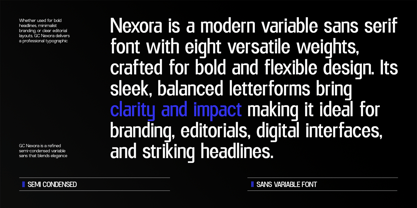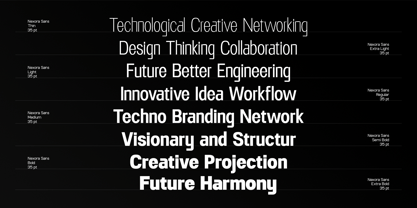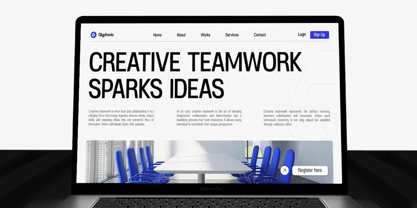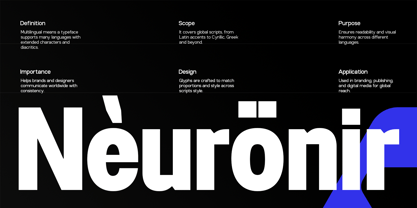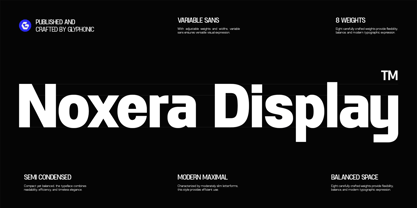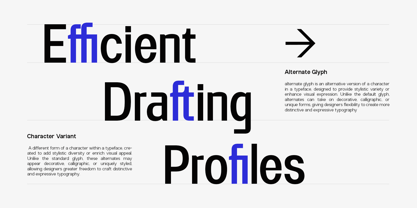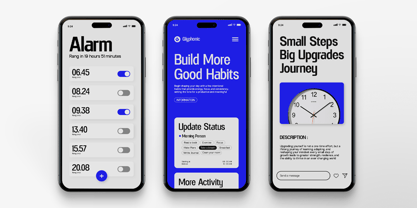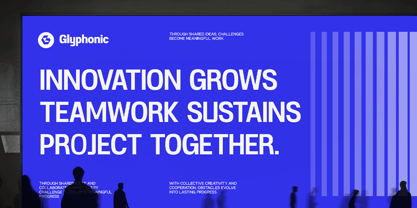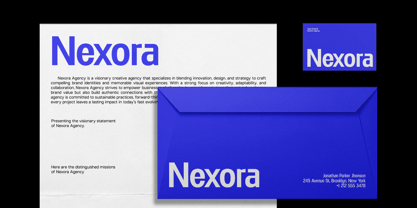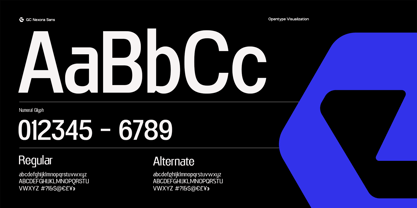
GC Noxera Display
by Onyx Studio
The GC Noxera Display Font Family was designed by Muhammad Hafiizh Solana and published by Onyx Studio. GC Noxera Display contains 8 styles and family package options. More about this family
GC Noxera Display – Modern Variable Sans is a contemporary sans-serif typeface designed for precision, versatility, and bold visual impact. With variable weights and widths, it offers complete flexibility across digital and print platforms—perfect for brands, headlines, interfaces, and editorial designs that demand clarity and modern sophistication. Its semi-condensed form balances efficiency with strong readability, while the geometric construction adds a clean and confident tone. Crafted for designers who value both adaptability and character, GC Noxera Display brings a sense of power, control, and forward-thinking style to every layout. Features: Uppercase & Lowercase Numbers & Punctuation Variable & Static Versions Semi-Condensed Structure Multilingual Support (170+ Languages) Achieve balance, modernity, and precision with GC Noxera Display — the ultimate sans for expressive, adaptable design.
Designers: Muhammad Hafiizh Solana
Foundry: Onyx Studio
Onyx Studio is an independent type design studio dedicated to crafting high-quality, distinctive, and expressive fonts. With a passion for detail and a spirit of exploration, Onyx Studio creates typefaces that are not only functional but also rich in character and visual identity.Balancing tradition with modern design sensibilities, Onyx Studio develops type that supports diverse visual needs—ranging from branding and editorial design to digital interfaces. Each font carries its own story, emphasizing legibility, originality, and artistic value.More than just a font foundry, Onyx Studio is a creative space where form, rhythm, and typographic structure are explored to build powerful, meaningful visual identities through type.